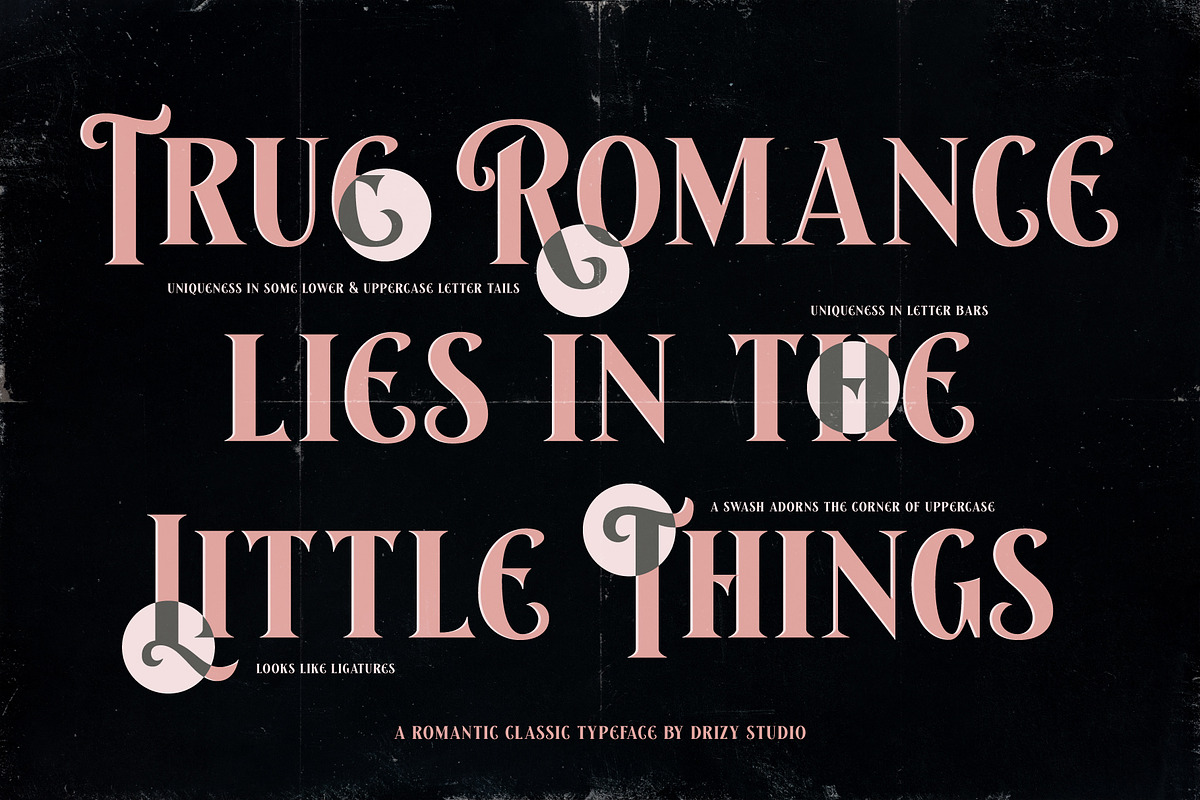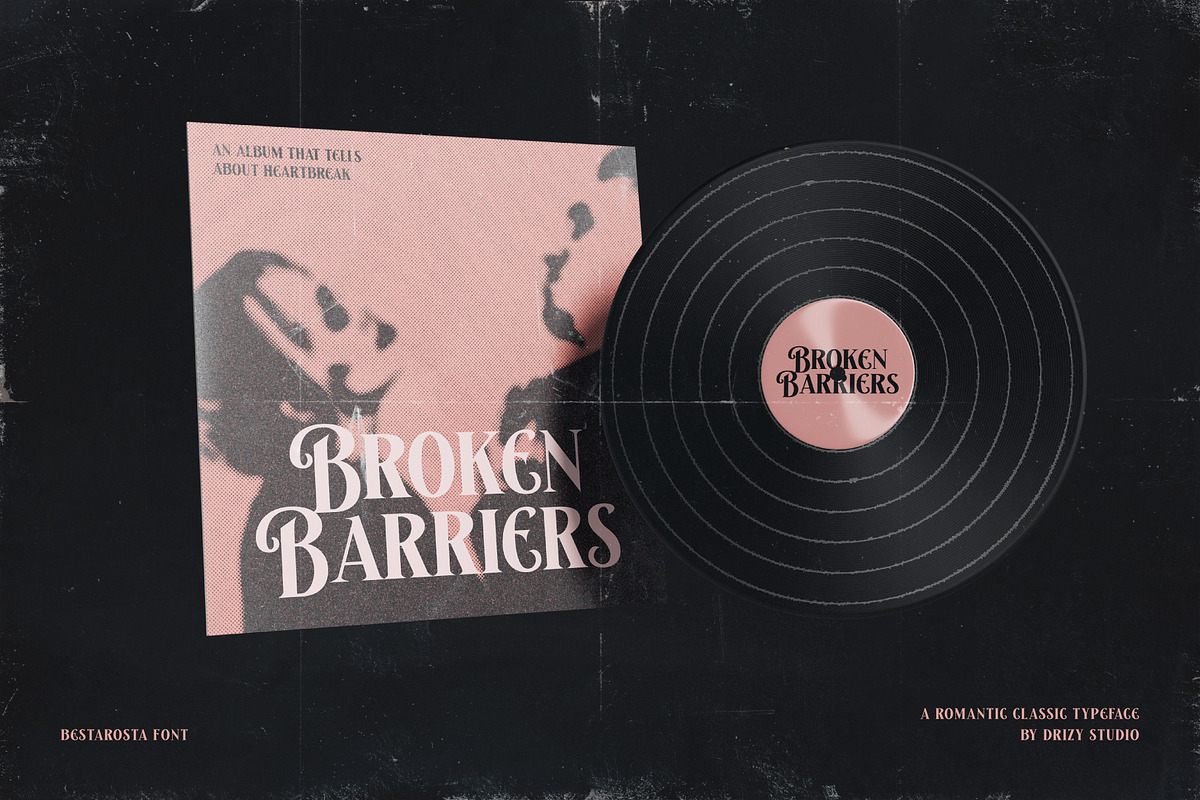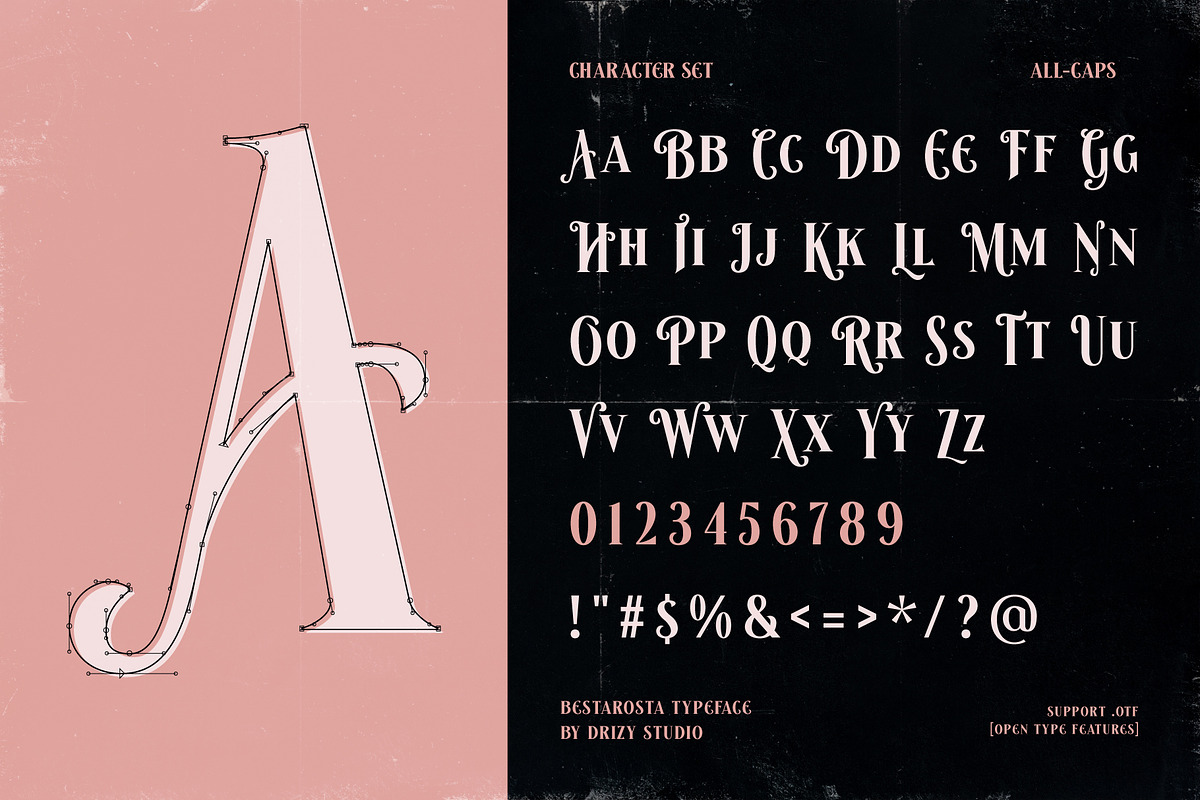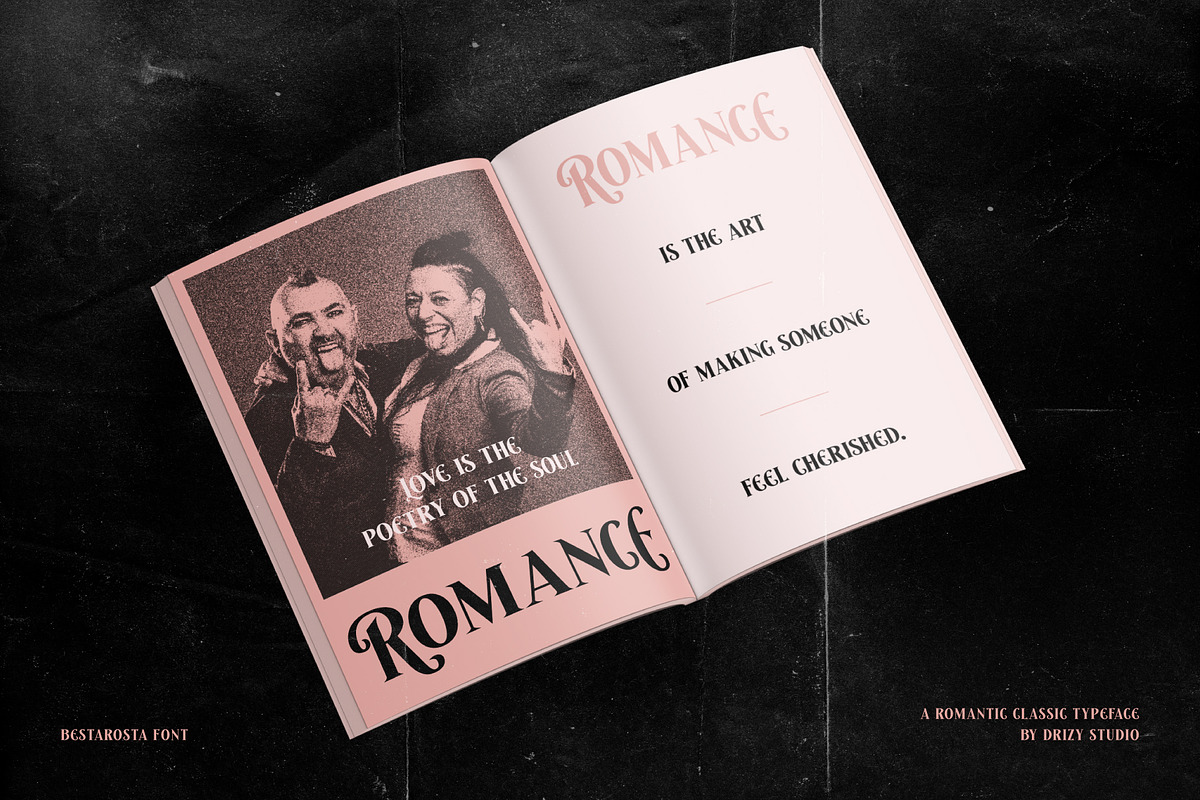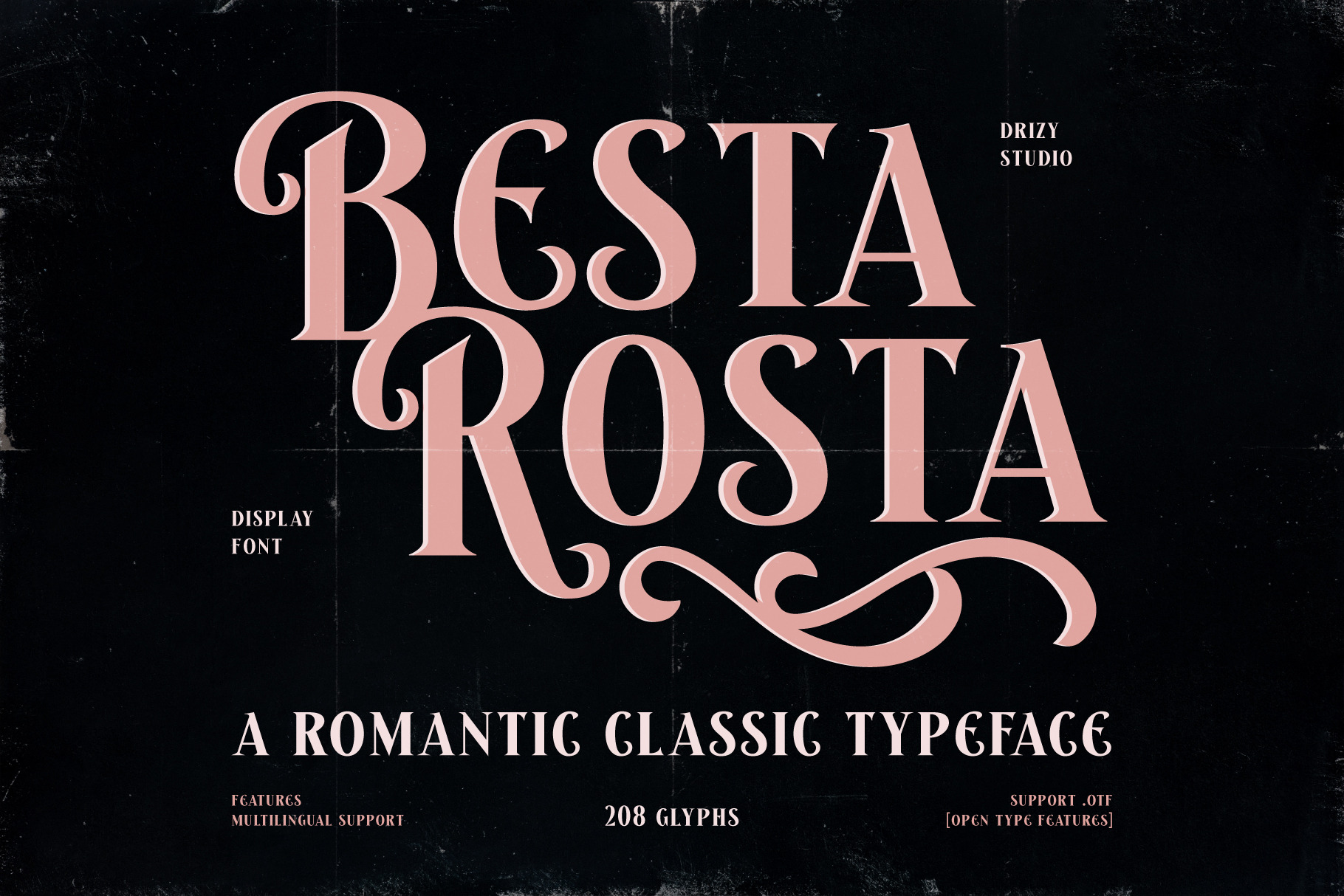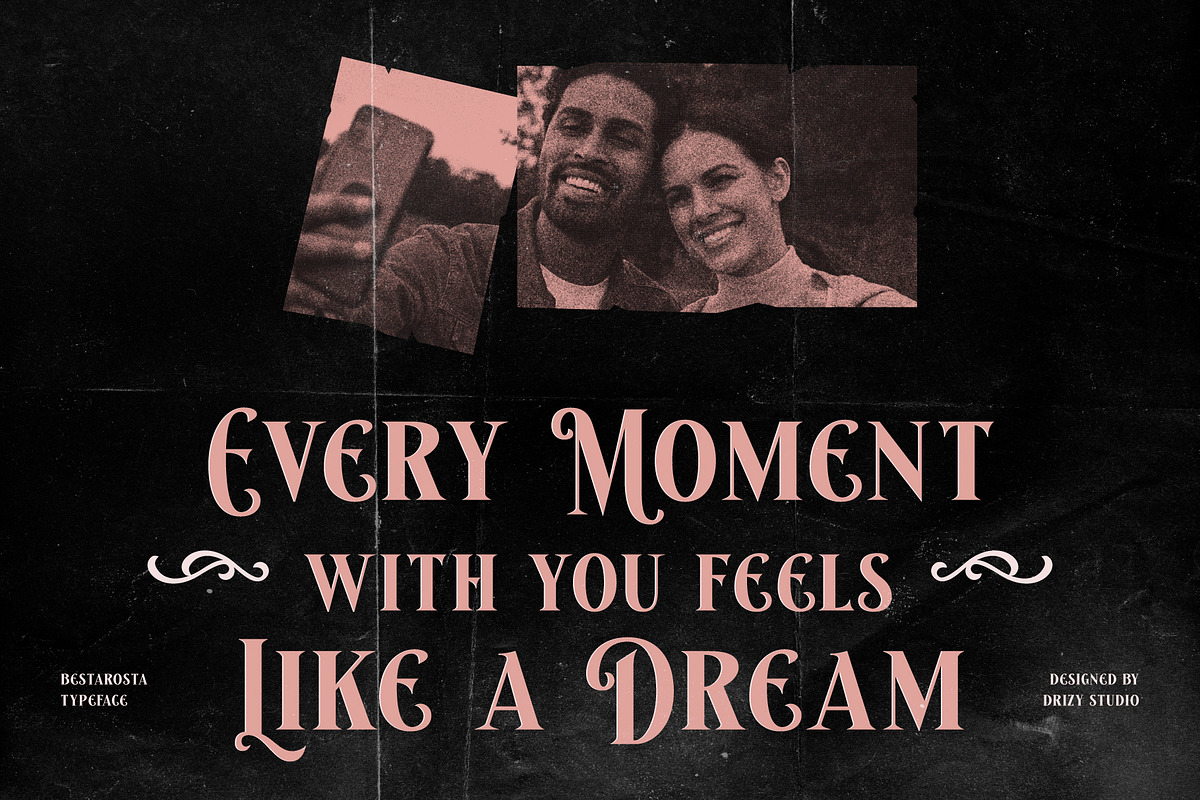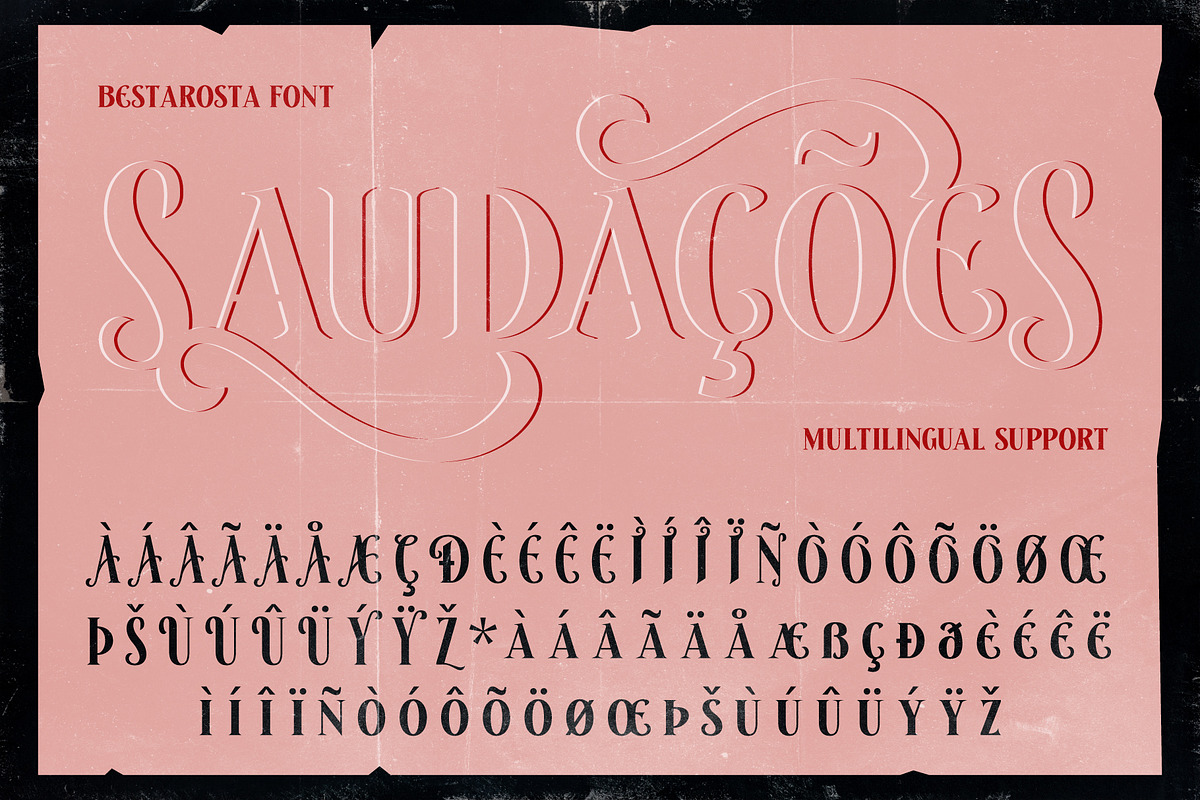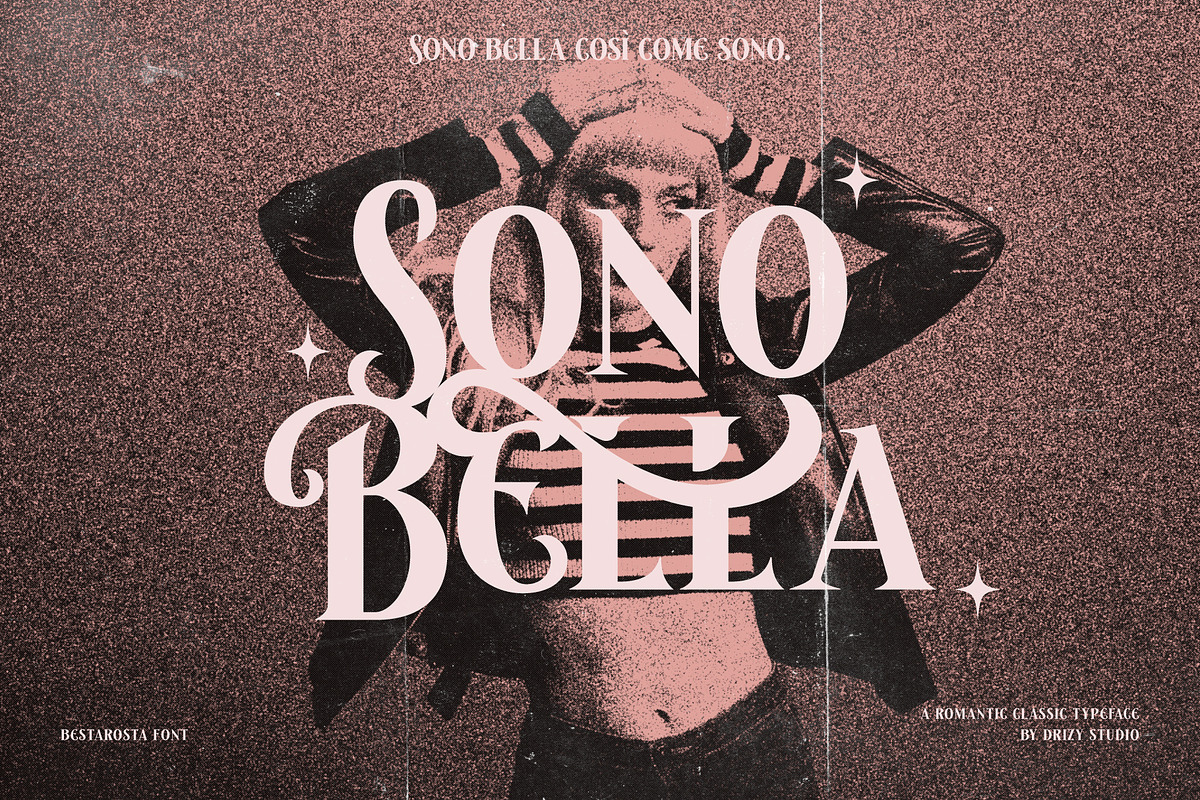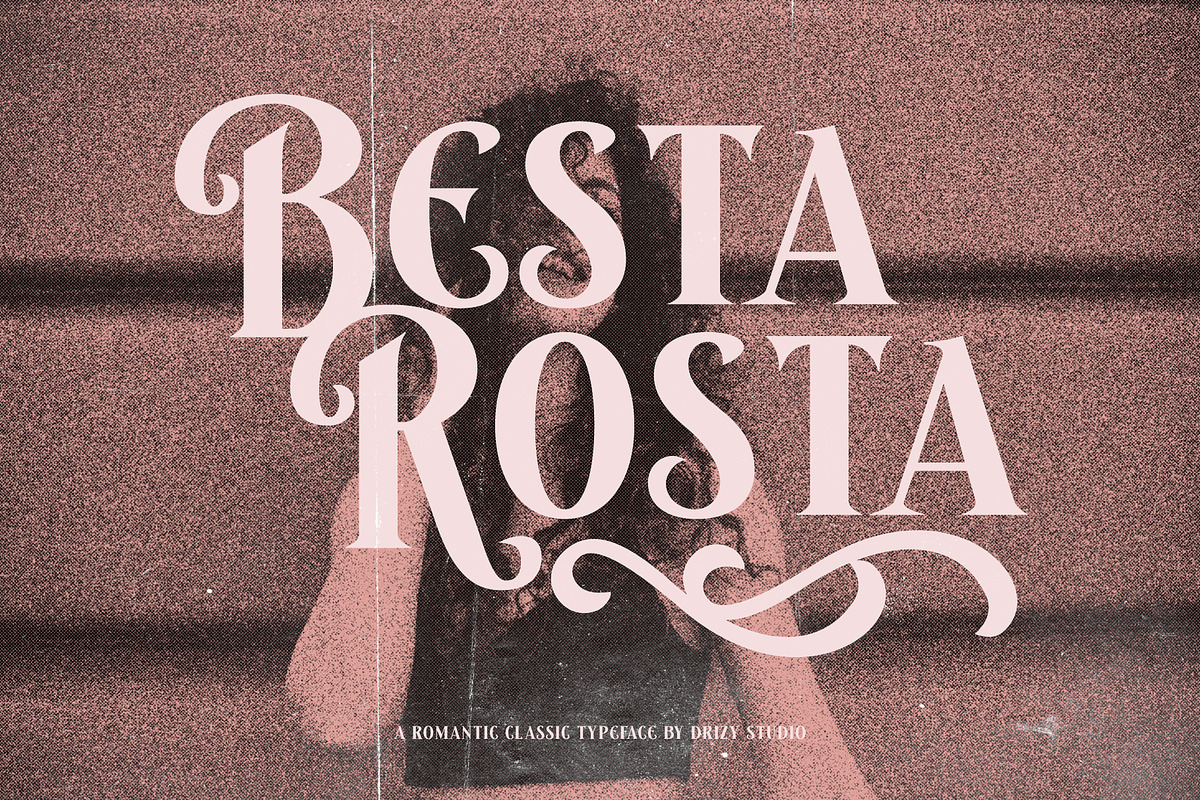
Besta Rosta - Romantic Classic Font
Besta Rosta is step into a world of timeless elegance and heartfelt emotions, a captivating font from the Emo Romance collection. Perfectly blending classic serifs with soft, romantic curves, this typeface exudes charm and sophistication. Whether you’re designing for heartfelt wedding invitations, poetic love letters, dreamy social media posts, or vintage-inspired branding, Besta Rosta adds a touch of romance and nostalgia to every project. It's delicate details and harmonious flow make it an ideal choice for creatives looking to express deep emotions with a classic yet modern twist. Let Besta Rosta be the voice of your most cherished stories, where every letter speaks the language of love.
Besta Rosta features:
- Character Set (All Caps)
- Punctuation & Numbers
Elevate and explore the design possibilities with this Emo Romance Font!